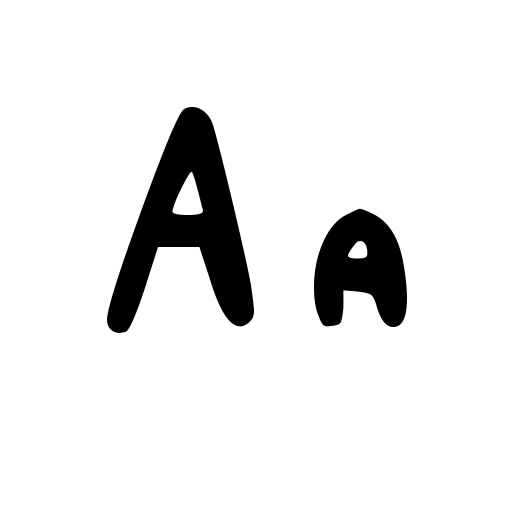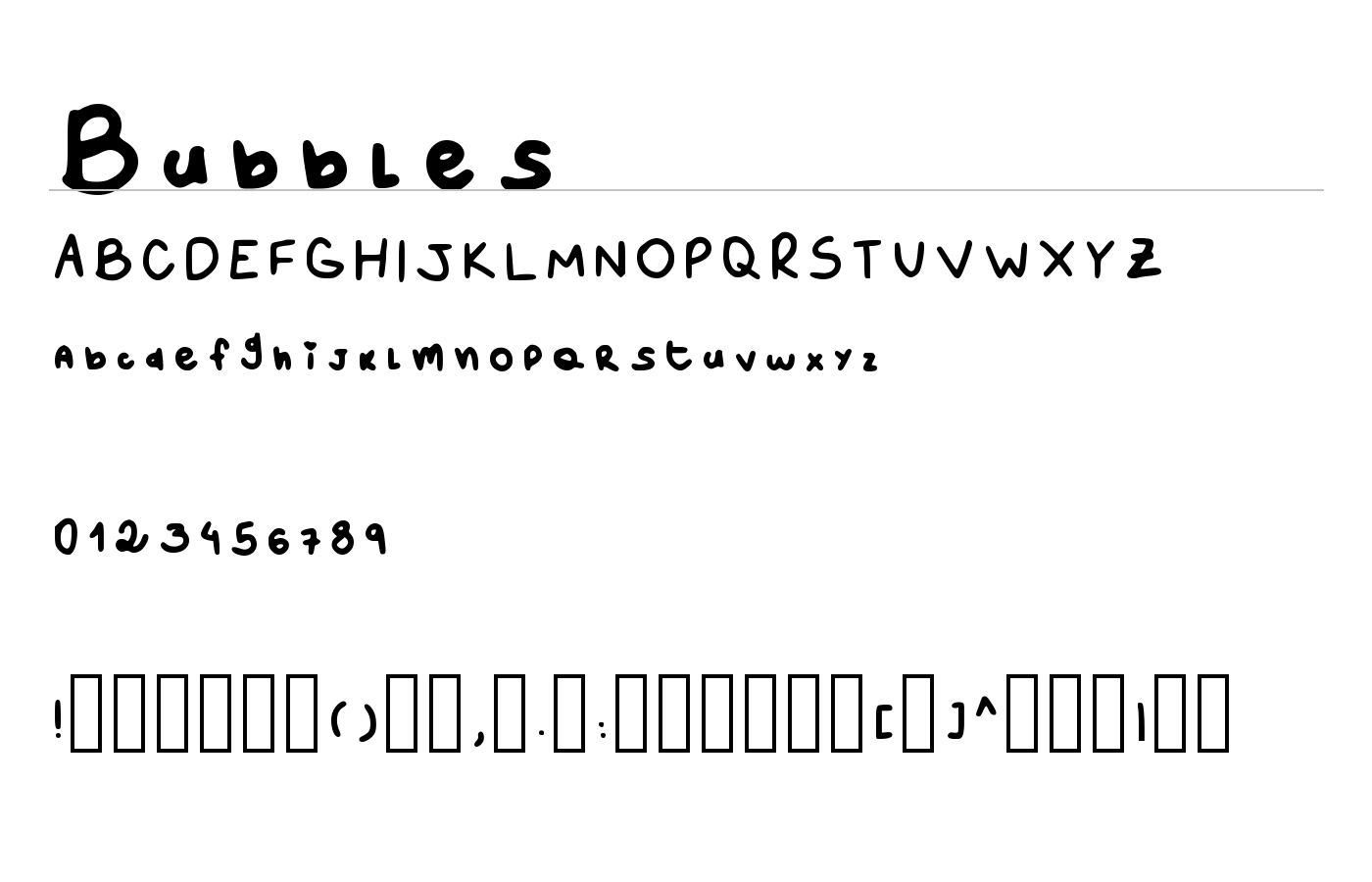
Bubbles Font is a playful, informal sans serif typeface with rounded, bubbly letterforms that feel lighthearted and approachable. Its irregular shapes and moderate x-height give it a casual, handwritten charm, making it perfect for designs aimed at children, creative projects, or brands seeking a fun, friendly personality. This font works well for logos, headlines, posters, and packaging where a warm, whimsical style is desired.
Bubbles Font
About Bubbles Font